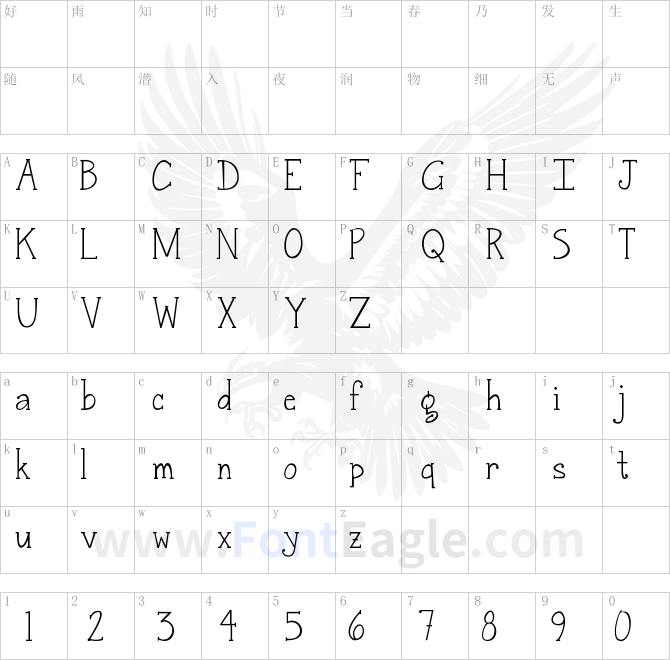
- Font name:Janda Snickerdoodle Serif
- Font Subfamily ID:KimberlyGeswein: Janda Snickerdoodle Serif: 2012
- Font Full Name:Janda Snickerdoodle Serif